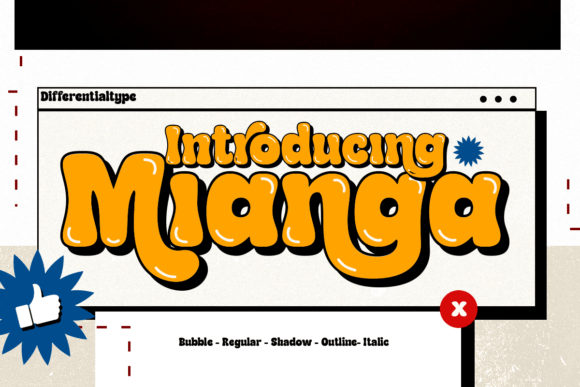
Introducing Mianga Font, the ultimate font for card design that will take your creative projects to the next level! Created by Differentialtype, this font family is a display font that exudes versatility, style, and a fun retro look.
With Mianga, you can effortlessly elevate any design you're working on, whether it's book covers, greeting cards, news headlines, or anything else that needs a touch of uniqueness. This font is bound to captivate your audience and leave a lasting impression.
What sets Mianga apart is its variety of styles. It comes in four different styles: regular, bubble, outline, and shadow. Each style has its own flair and personality, allowing you to mix and match to achieve the perfect result. And don't forget about the italics available in each style, adding even more depth to your designs.
Mianga is more than just a font; it's a journey back in time. It effortlessly transports your audience to a retro and vintage era, evoking a sense of nostalgia and charm. Imagine the impact it will have on your projects, making them stand out from the crowd and leaving your viewers in awe.
But Mianga doesn't stop there. This font is also incredibly user-friendly. Its clear and legible characters ensure that your message is easily conveyed, avoiding any confusion or misinterpretation. It's the perfect balance between style and functionality.
Transform your projects with Mianga Font and let your imagination run wild. Get ready to leave a lasting impression with this captivating and versatile font for all your card design needs.